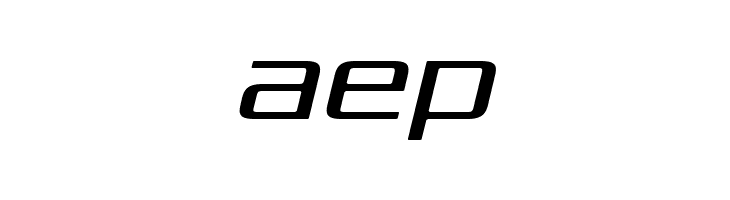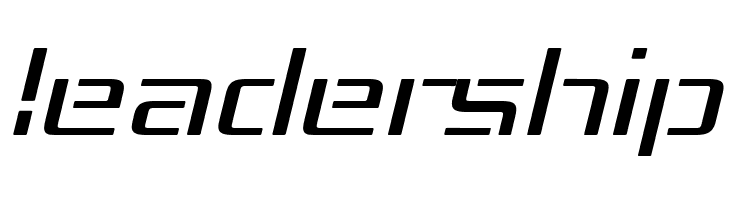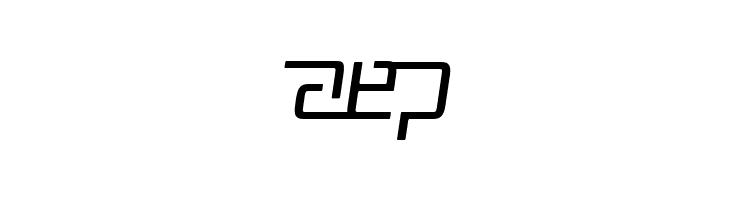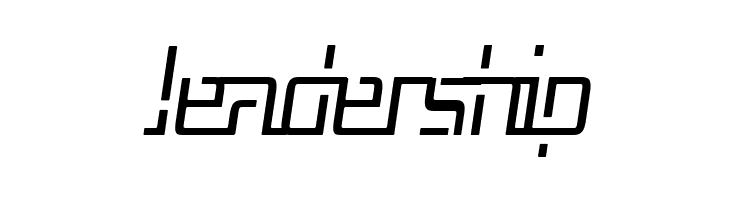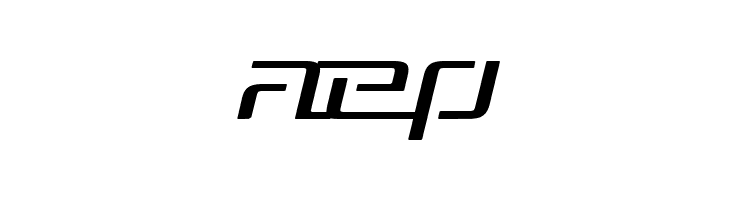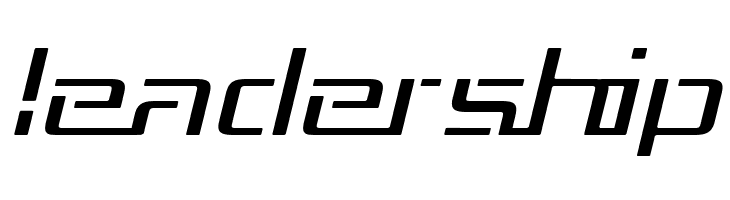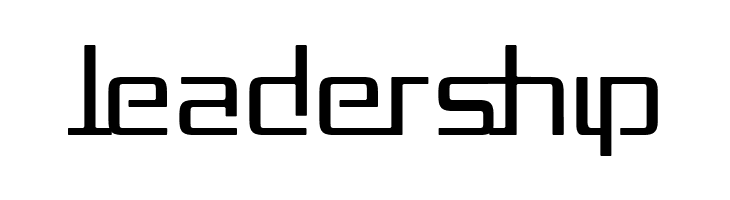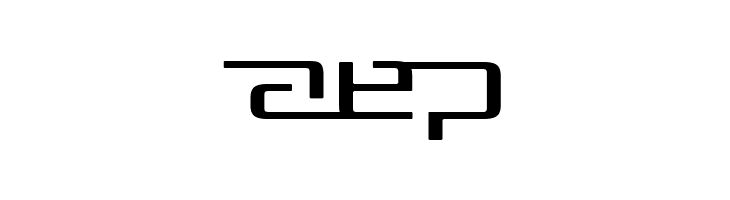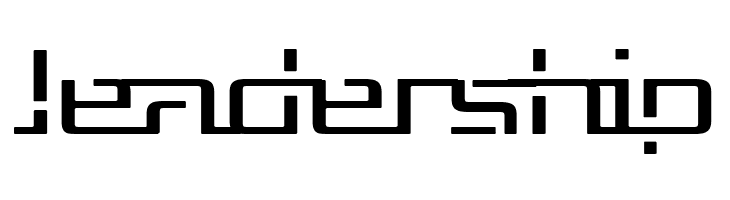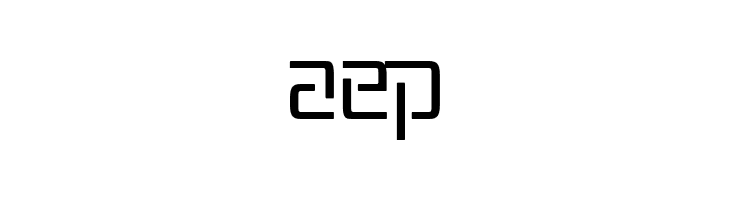
A modern, clean sans-serif font with uniform stroke width.
A sleek, modern, light, and oblique font with smooth curves.
A sleek, modern, and oblique sans-serif font with a light weight.
A sleek, modern font with a slightly italicized and condensed design.
A modern, geometric font with a monospaced feel, ideal for technical applications.
A clean, geometric font with a modern and minimalistic design.
An angular, hand-drawn font with a geometric, abstract style.
A clean, modern sans-serif font with consistent stroke width and high legibility.
A modern, geometric font with a clean and structured design.
A sleek, modern italic font with a geometric structure and balanced spacing.
A modern, geometric, and condensed font with a futuristic style.
A sleek, modern, condensed italic font with a geometric structure.
A modern, geometric font with a futuristic and minimalistic design.
A sleek, modern italic font with a futuristic and dynamic design.
A modern, geometric font with a futuristic and sleek design.
A geometric, futuristic font with clean lines and a technical aesthetic.
A sleek, modern italic font with geometric precision and a dynamic style.
A geometric, modern font with a condensed, technical style.
A modern, condensed, and italicized font with a geometric and futuristic design.
A sleek, modern font with a futuristic, italicized design and geometric influences.
A modern, geometric font with a futuristic and technical style.
A modern, italicized font with a sleek, geometric design.
A modern, geometric font with a condensed and technical style.
A sleek, modern, condensed italic font with a futuristic and technical design.
A modern, geometric font with a futuristic and minimalistic design.
A sleek, futuristic font with geometric, italicized characters.
A geometric, modern font with clean lines and a futuristic aesthetic.
A sleek, modern italic font with geometric precision and dynamic style.
A modern, geometric, and condensed font with low contrast and rounded edges.
A sleek, modern, condensed italic font with geometric structure and consistent stroke width.
A modern, geometric font with a consistent stroke width and angular design.
A sleek, modern italic font with a streamlined, futuristic design.
A modern, geometric font with a futuristic and minimalistic design.
A futuristic, geometric italic font with angular and streamlined letterforms.